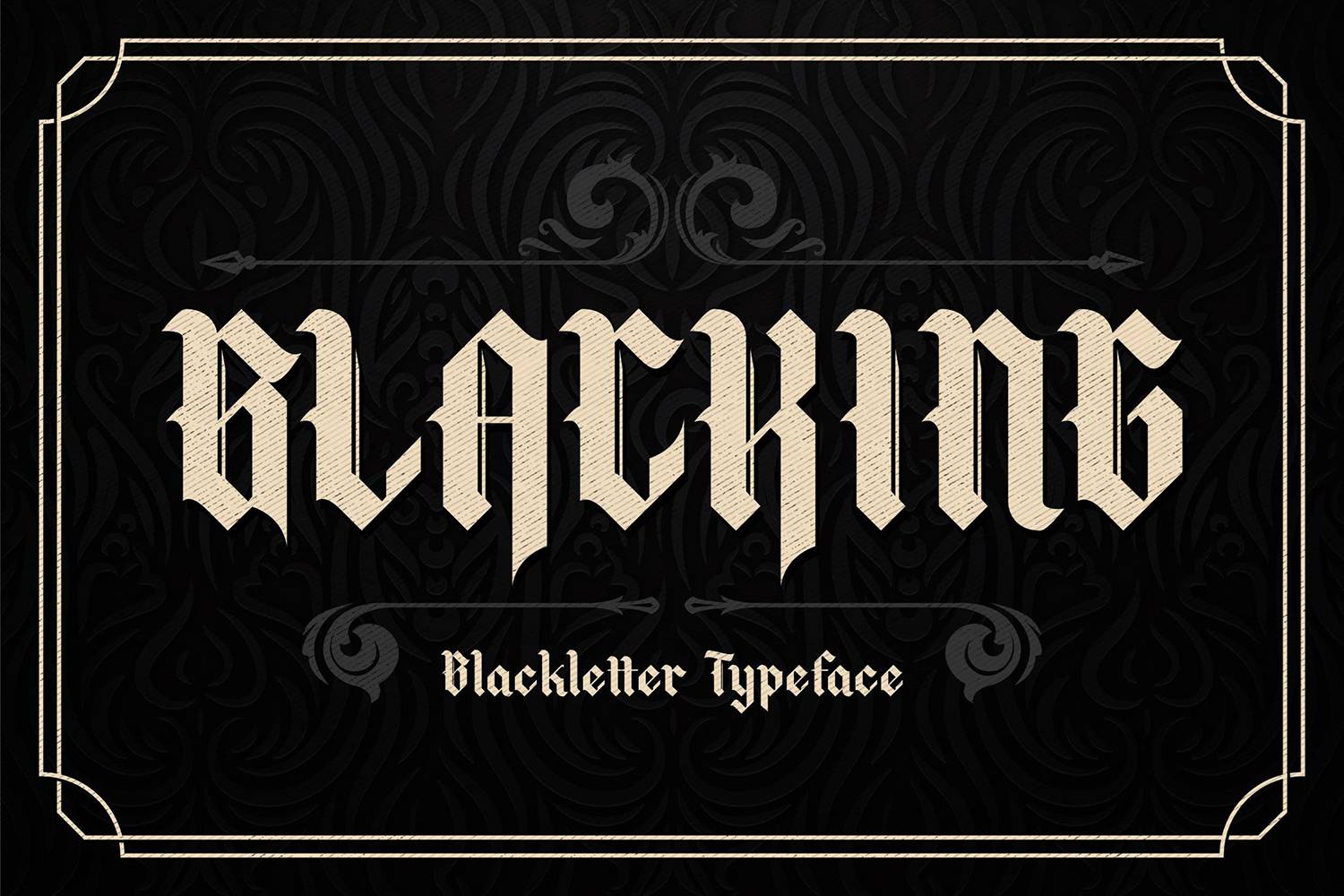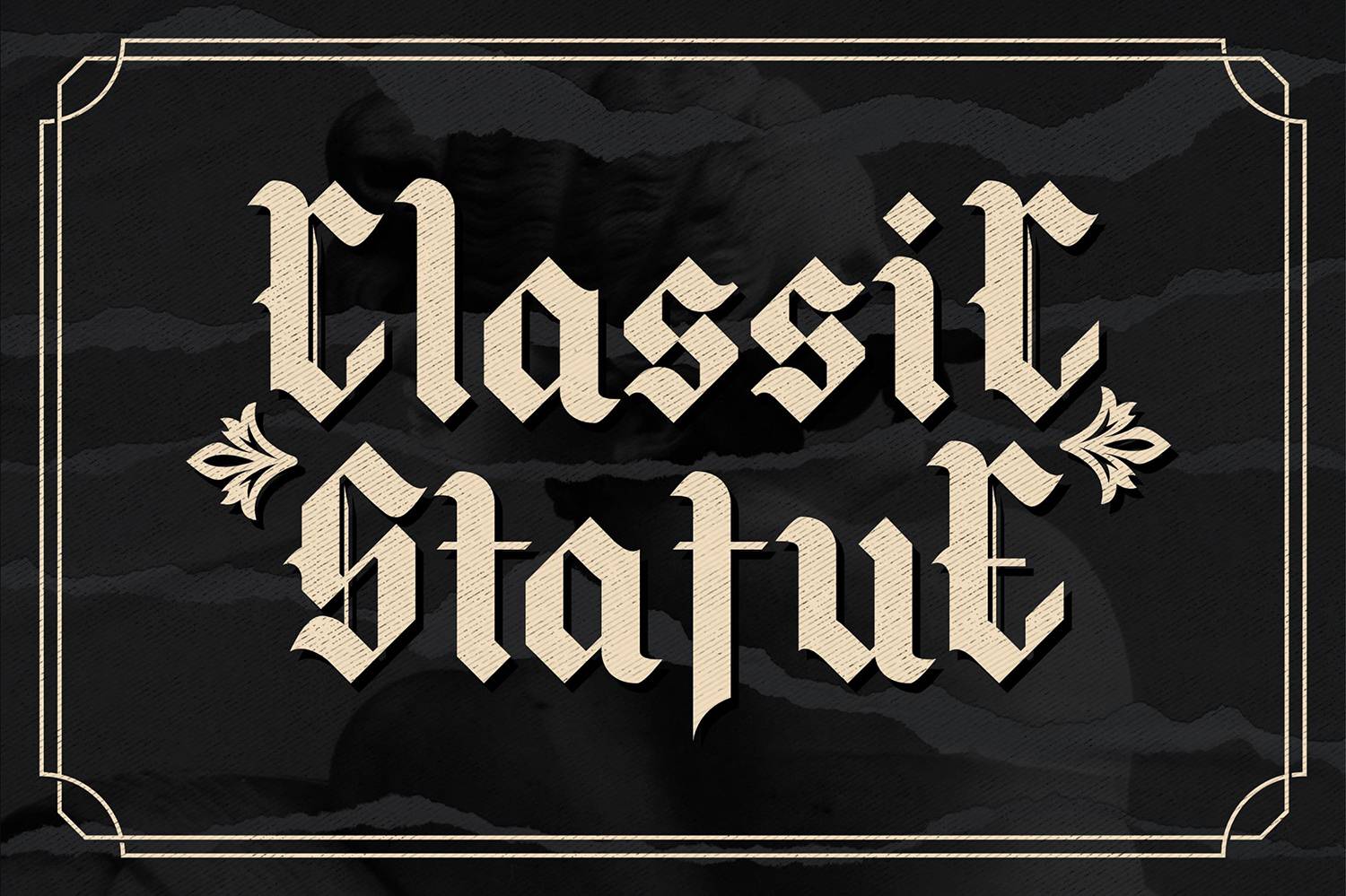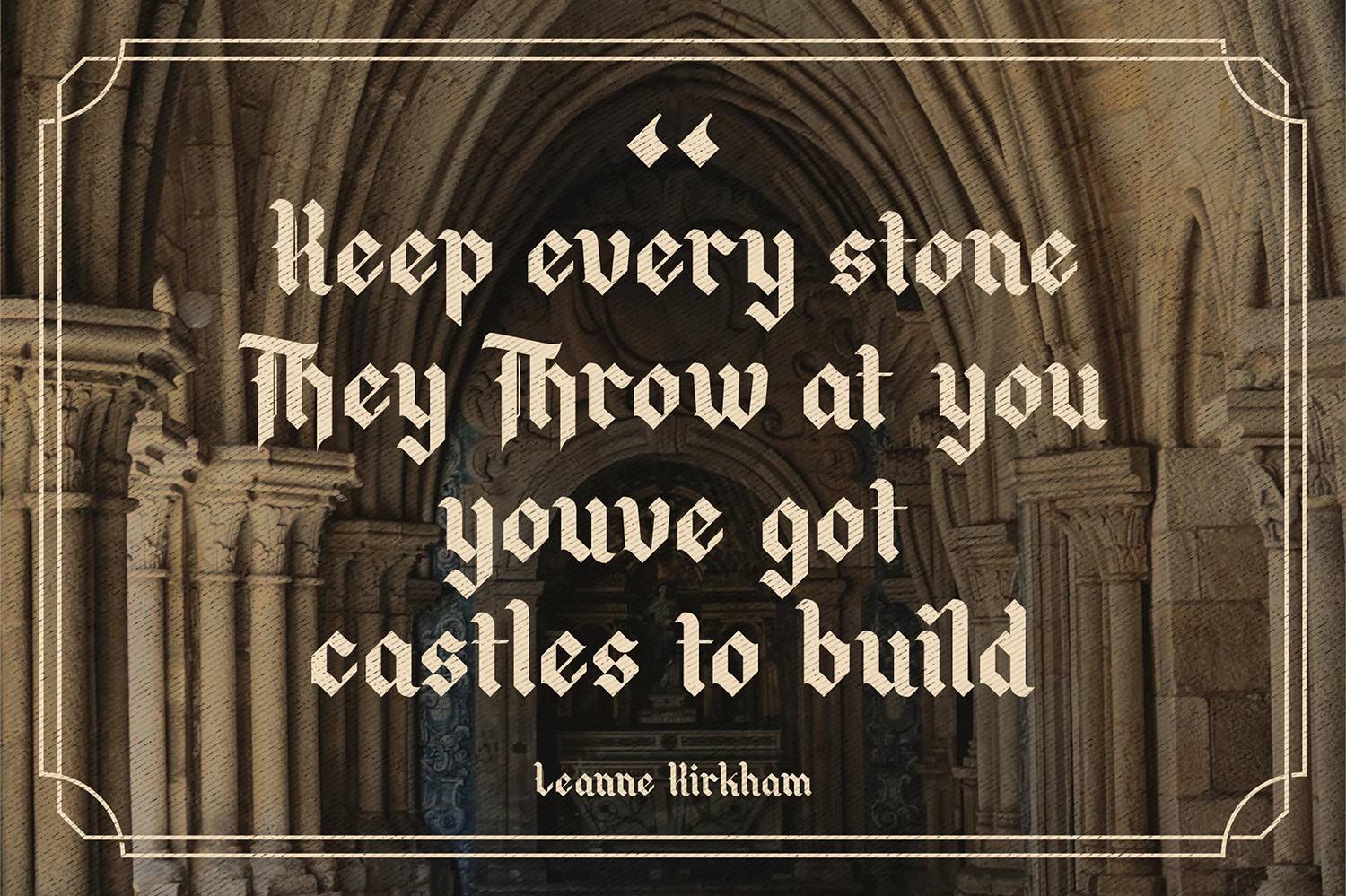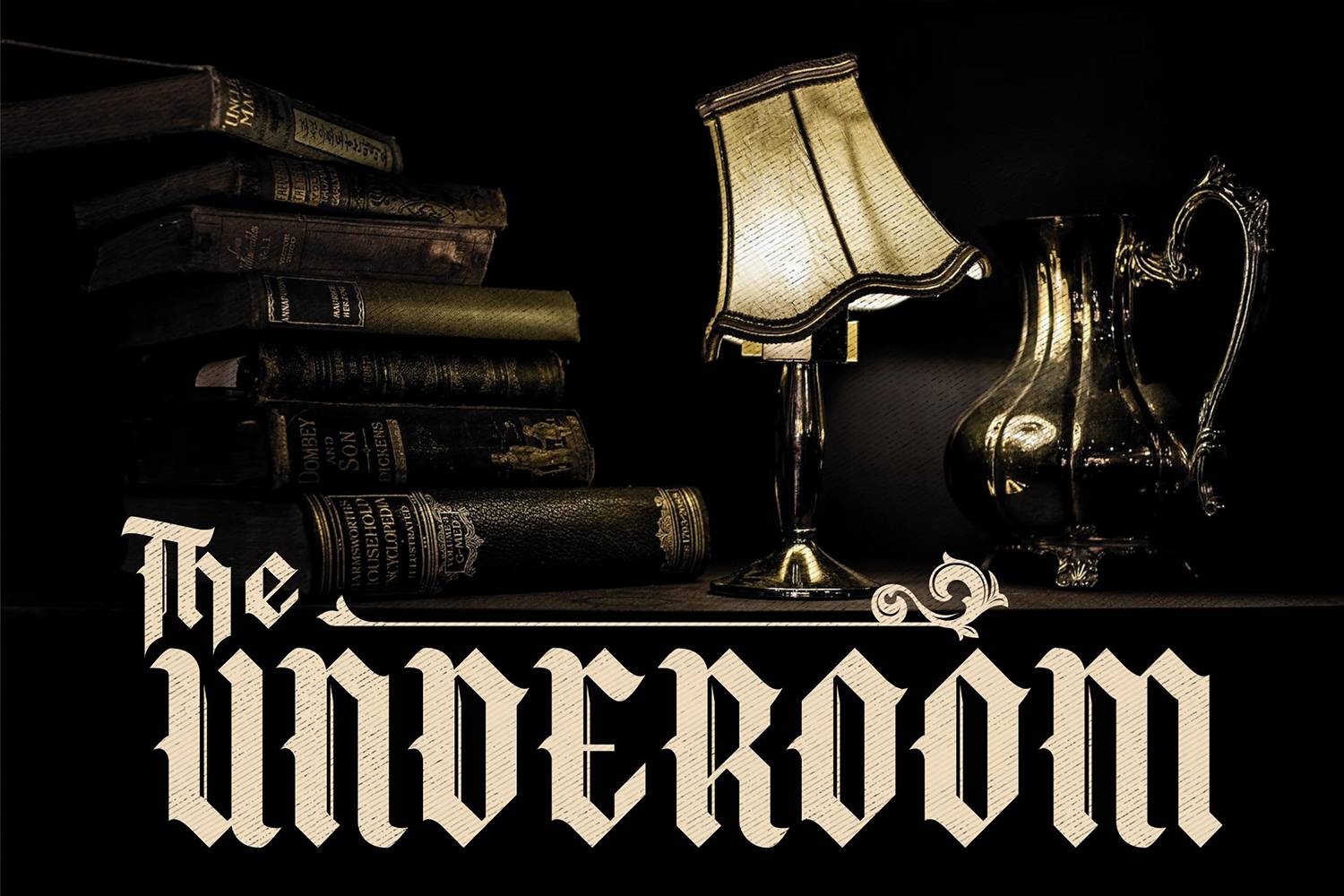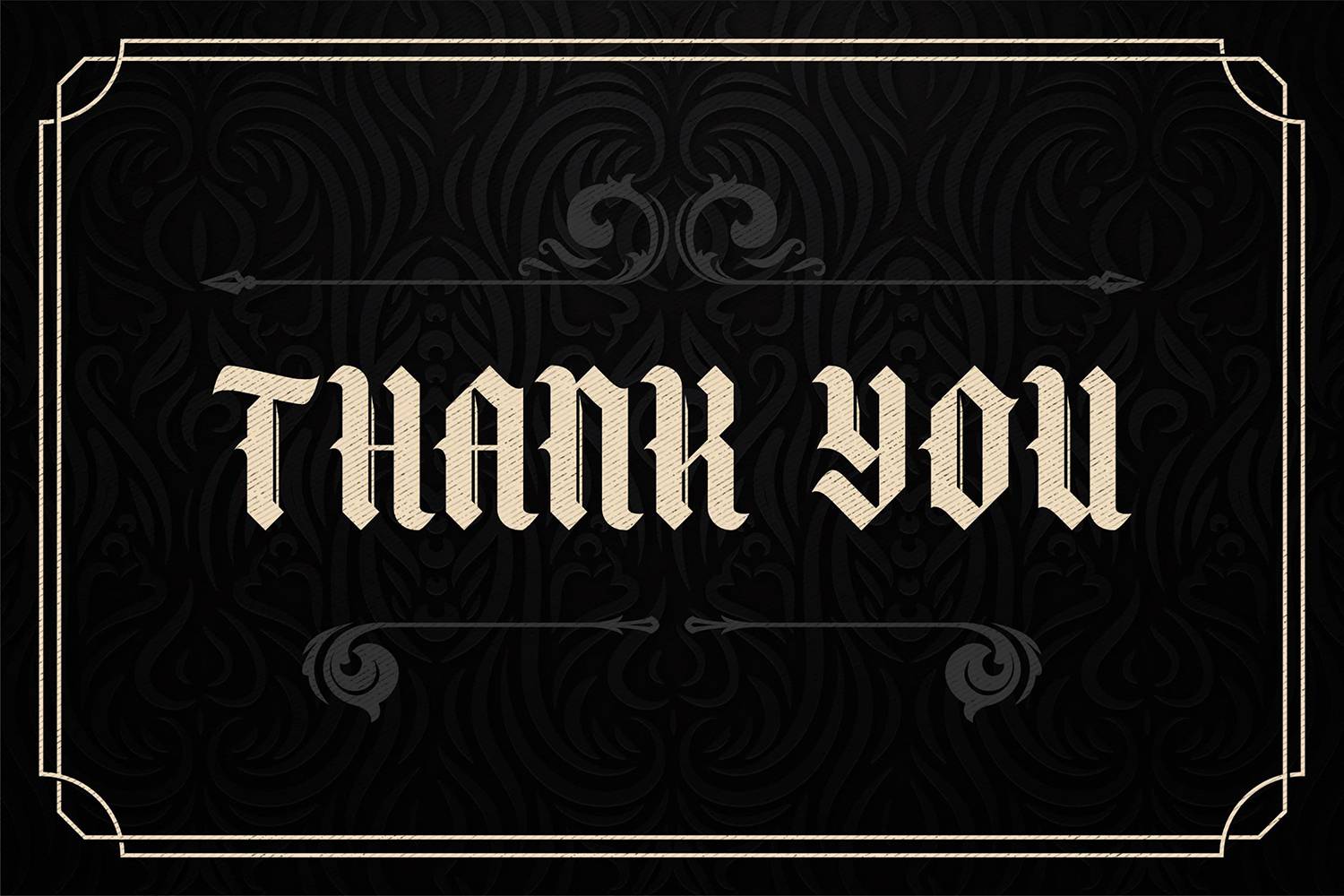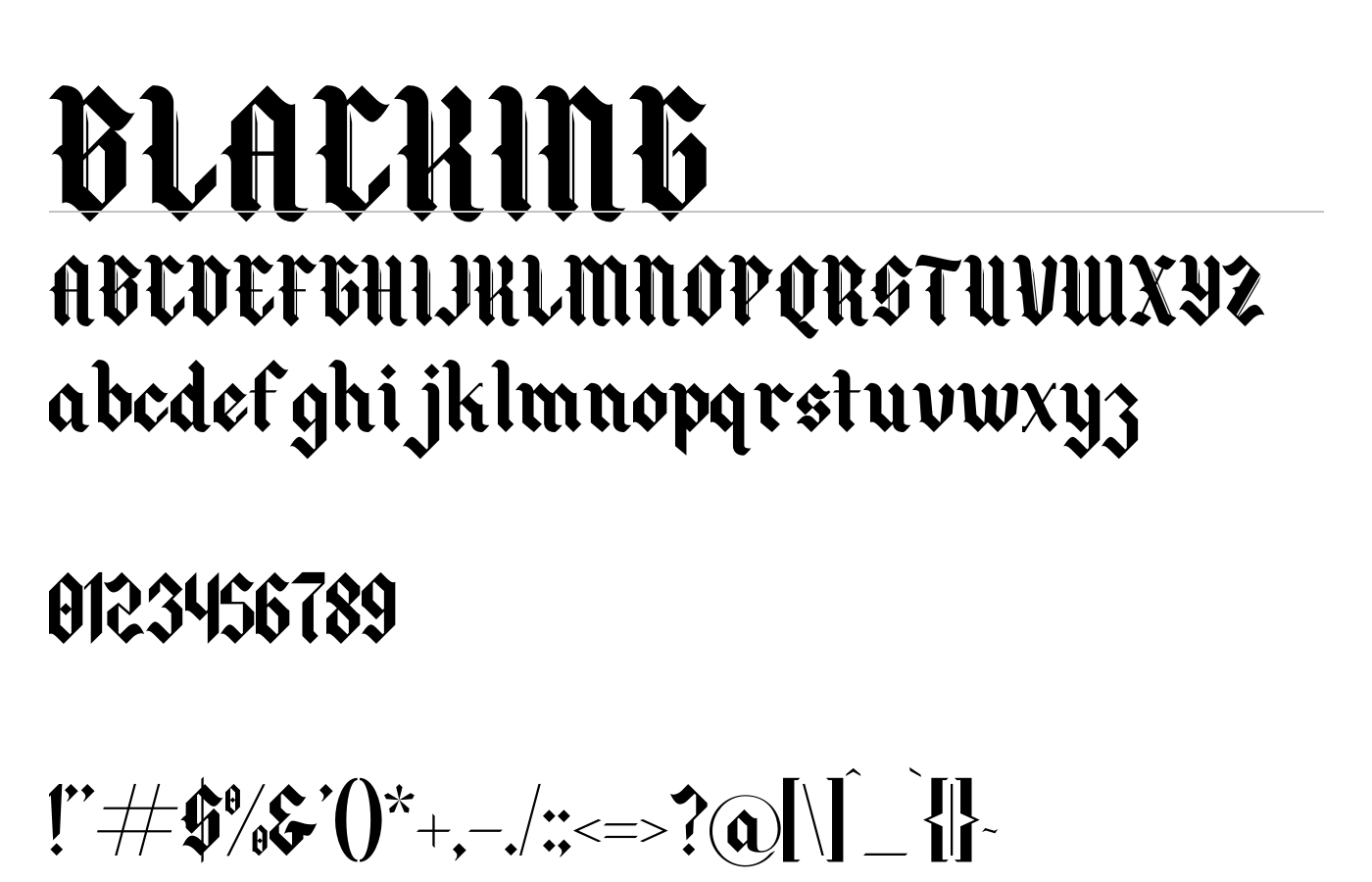
Blacking Font is a bold, blackletter-style typeface with strong Gothic influences, featuring sharp angles and dramatic contrasts between thick and thin strokes. Its condensed letterforms and intricate detailing give it an intense, vintage character, making it perfect for eye-catching headlines, posters, and branding that demand a sense of tradition and impact. This font works especially well in designs aiming for a historic or rebellious feel, lending a distinct and memorable personality to any project.
Blacking Font
About Blacking Font